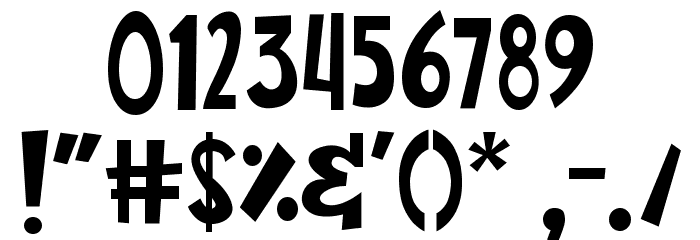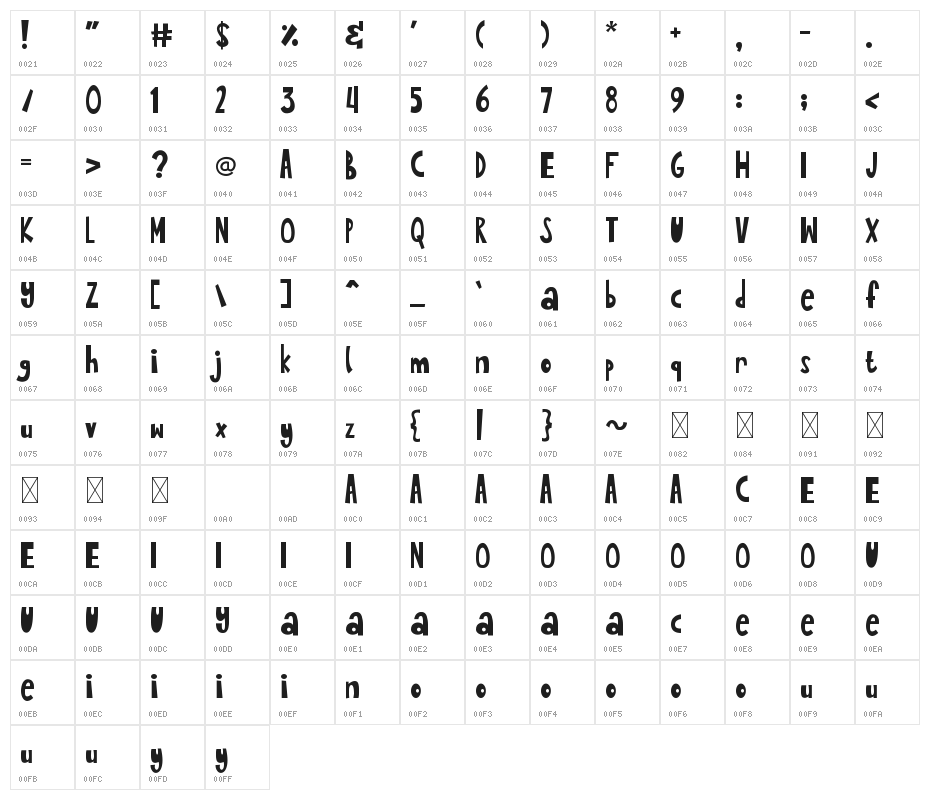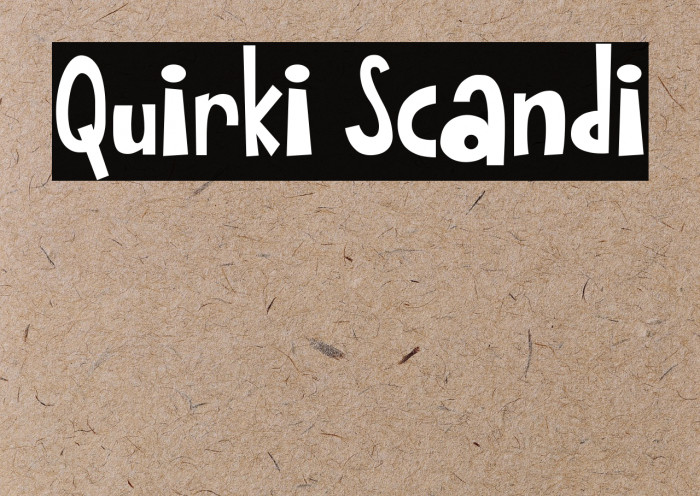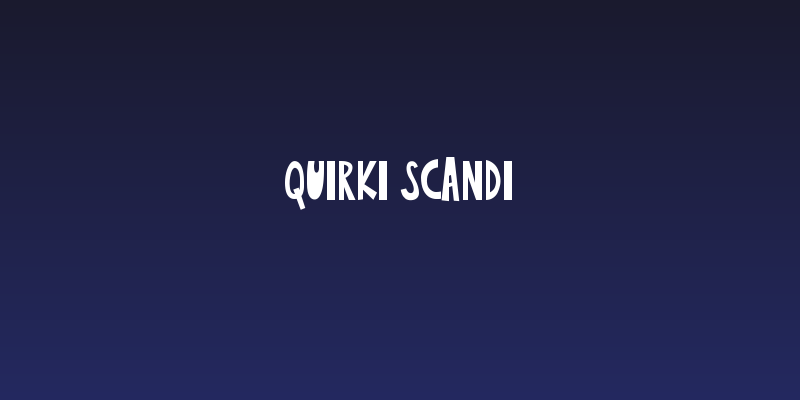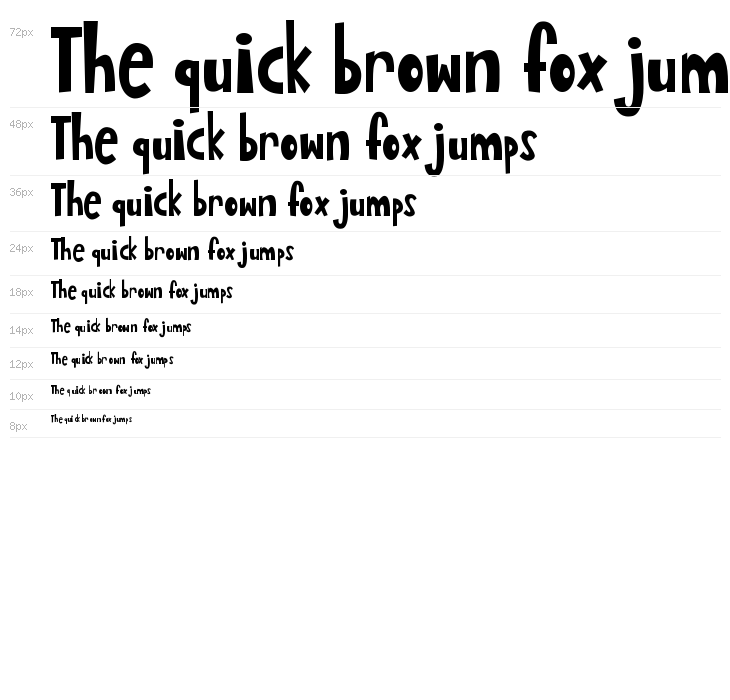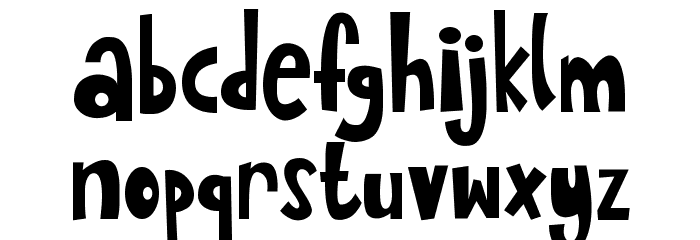
Quirki Scandi Font
Quirki Scandi Description
This playful and quirky font features a unique blend of bold and whimsical characteristics. The letters are slightly irregular, giving them a hand-drawn appearance that adds a touch of personality and charm. The uppercase letters are tall and narrow, while the lowercase letters maintain a consistent style with rounded edges and a friendly demeanor. Numbers and special characters follow the same playful design, making this font versatile for various creative projects. Its bold strokes and distinctive style make it stand out, perfect for capturing attention.
| Overall Style | Playful, Quirky, Hand-drawn |